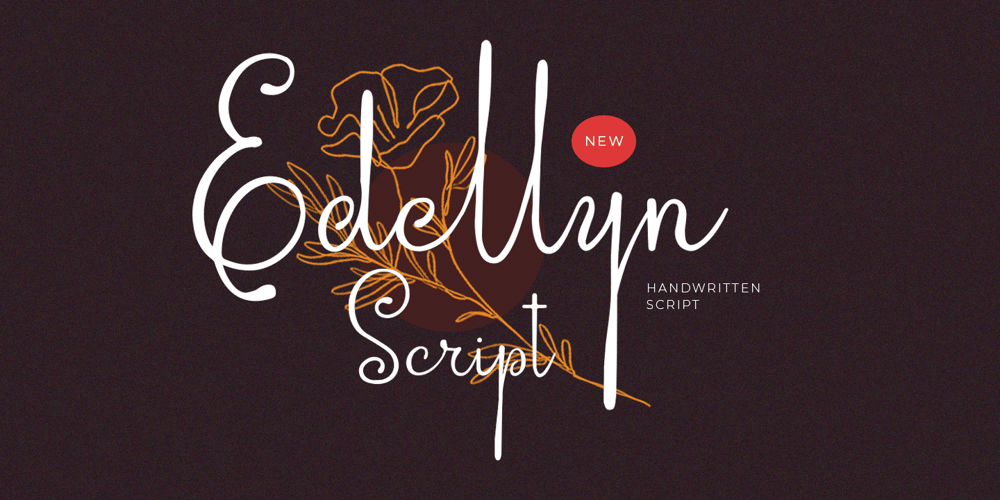
Edellyn Script
Edellyn Script font
Edellyn Script Font Family was designed by Hendry Juanda and published by Letterhend. Edellyn Script contains 1 styles and family package options. Introducing,Edellyn Script, a modern script typeface. This collection of scripts is perfect for personal branding. As you can see, this typeface has beutiful and modern look which is perfectly made to be applied especially in headline, logotype, apparel, invitation, branding, packaging, wedding card, advertising etc. Features : uppercase & lowercase numbers and punctuation multilingual alternates PUA encoded We highly recommend using a program that supports OpenType features and Glyphs panels like many of Adobe apps and Corel Draw, so you can see and access all Glyph variations. Thank you for purchase this font and Happy Creating !!!